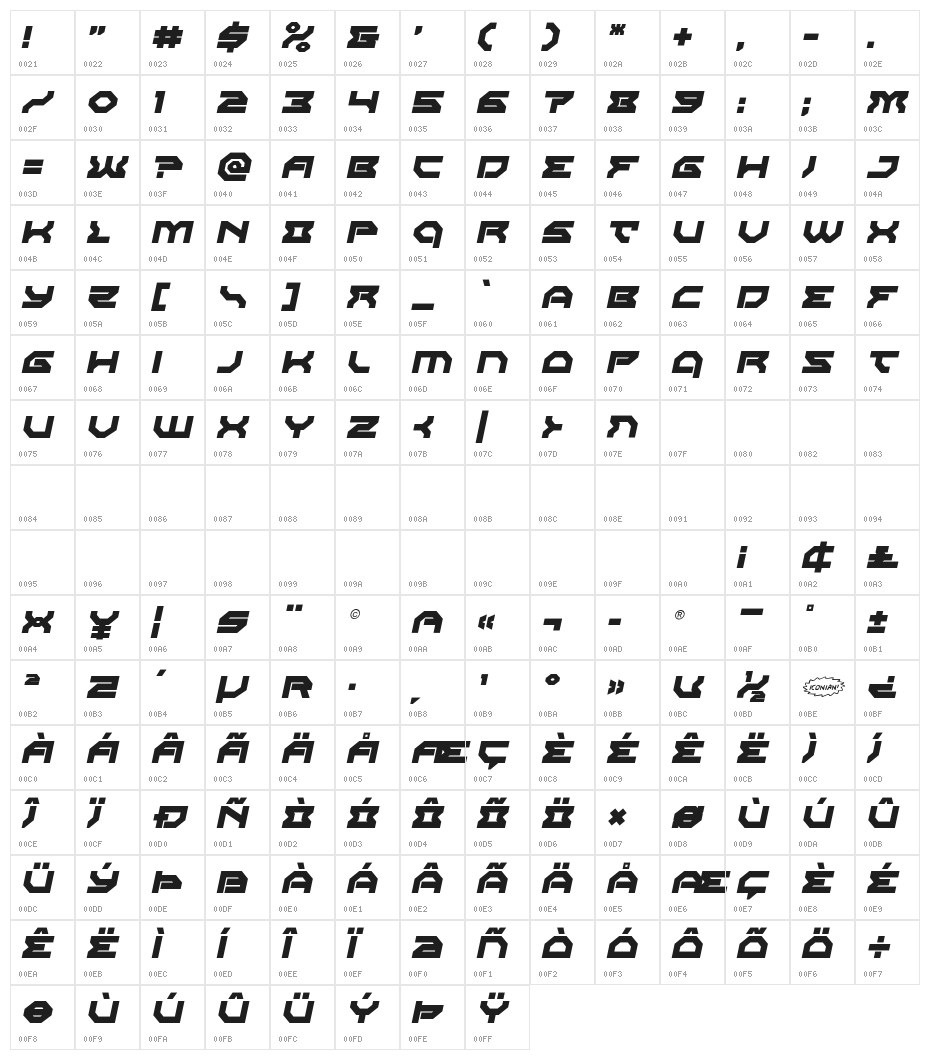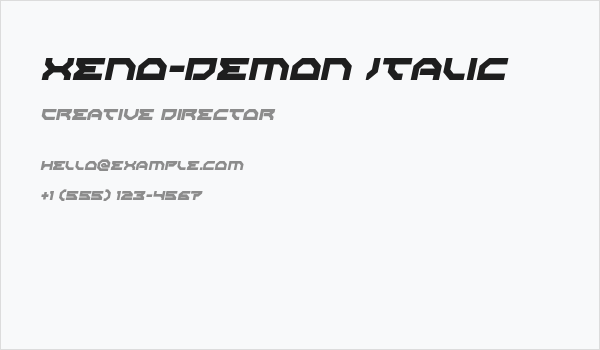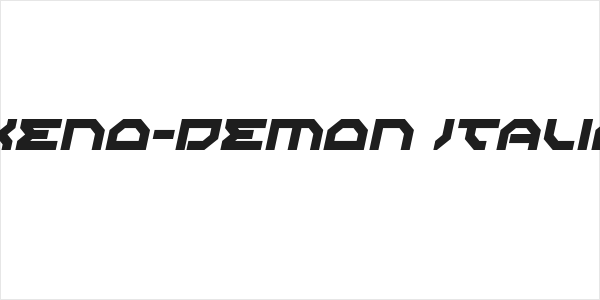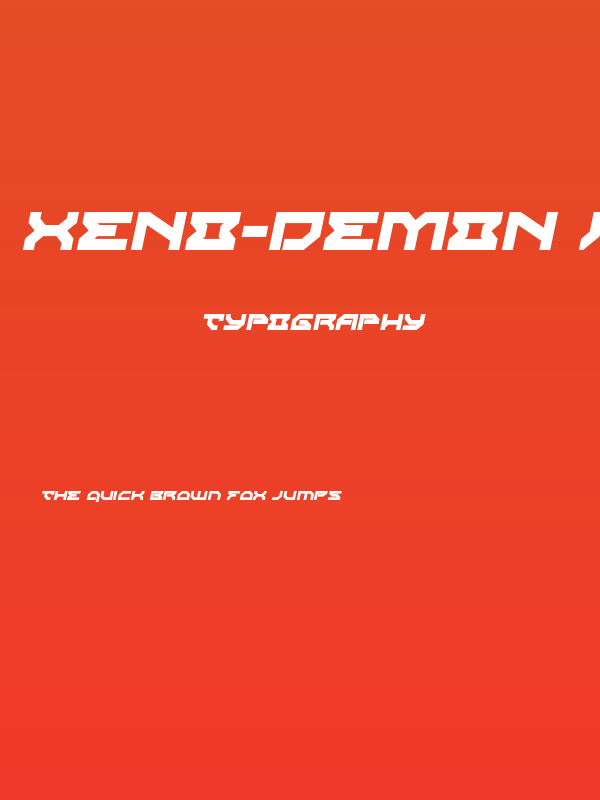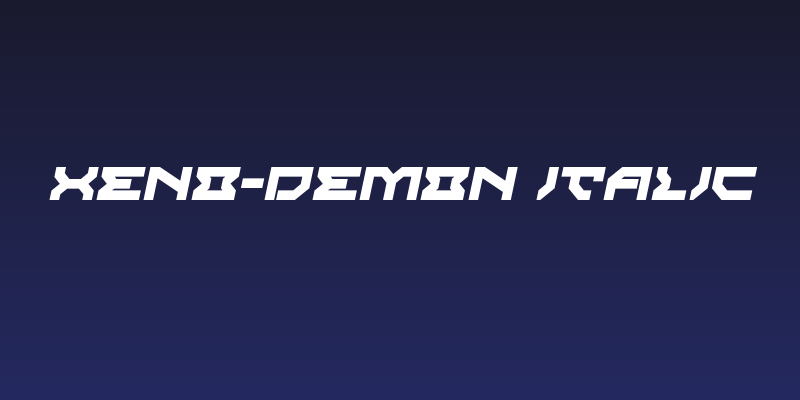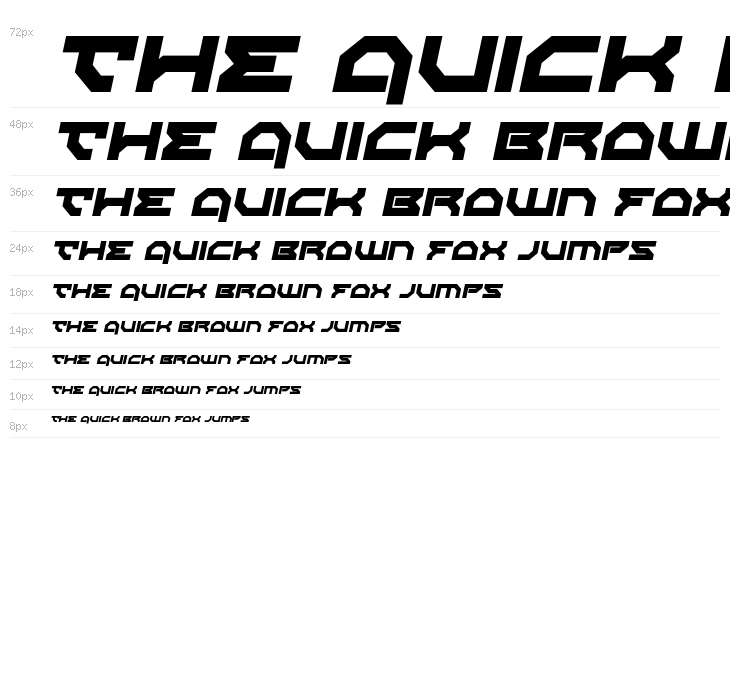
Xeno-Demon Italic Font
Xeno-Demon Italic Description
This font features a bold, angular design with a futuristic and aggressive aesthetic. The characters are sharply cut with geometric precision, giving them a dynamic and edgy appearance. The italic slant adds a sense of motion and urgency, enhancing its modern and tech-inspired style. The uppercase and lowercase letters maintain a consistent height, while the numbers and special characters are designed to match the overall angular theme. This font is ideal for projects that require a strong, impactful visual presence.
| Overall Style | Futuristic, Modern |
| Proposed Projects | Ideal for sci-fi themed designs, video game graphics, tech branding, and futuristic posters. |